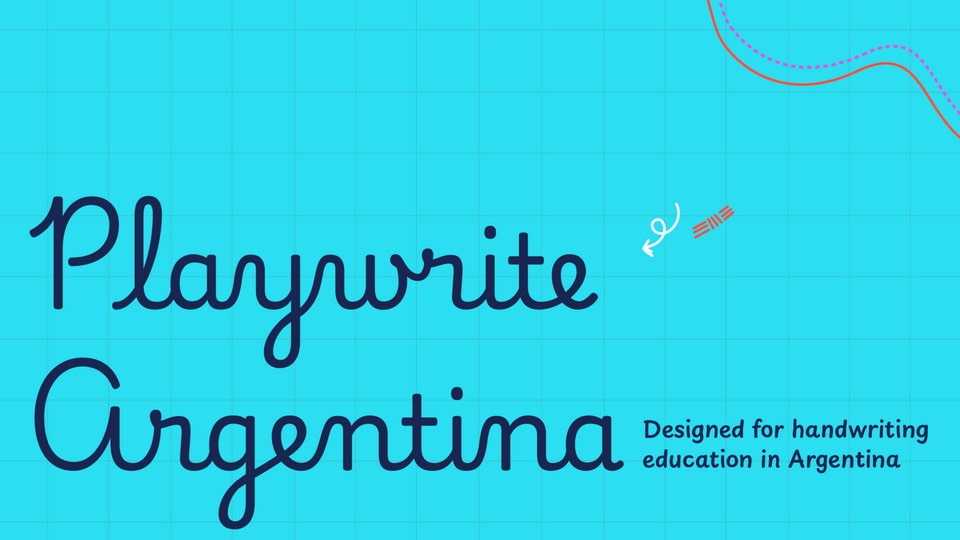
Download Playwrite Argentina AU font, a typeface that allows the creation of primary school cursive fonts. Primary school curricula in Argentina focuses on writing mostly from a comprehension and composition standpoint.